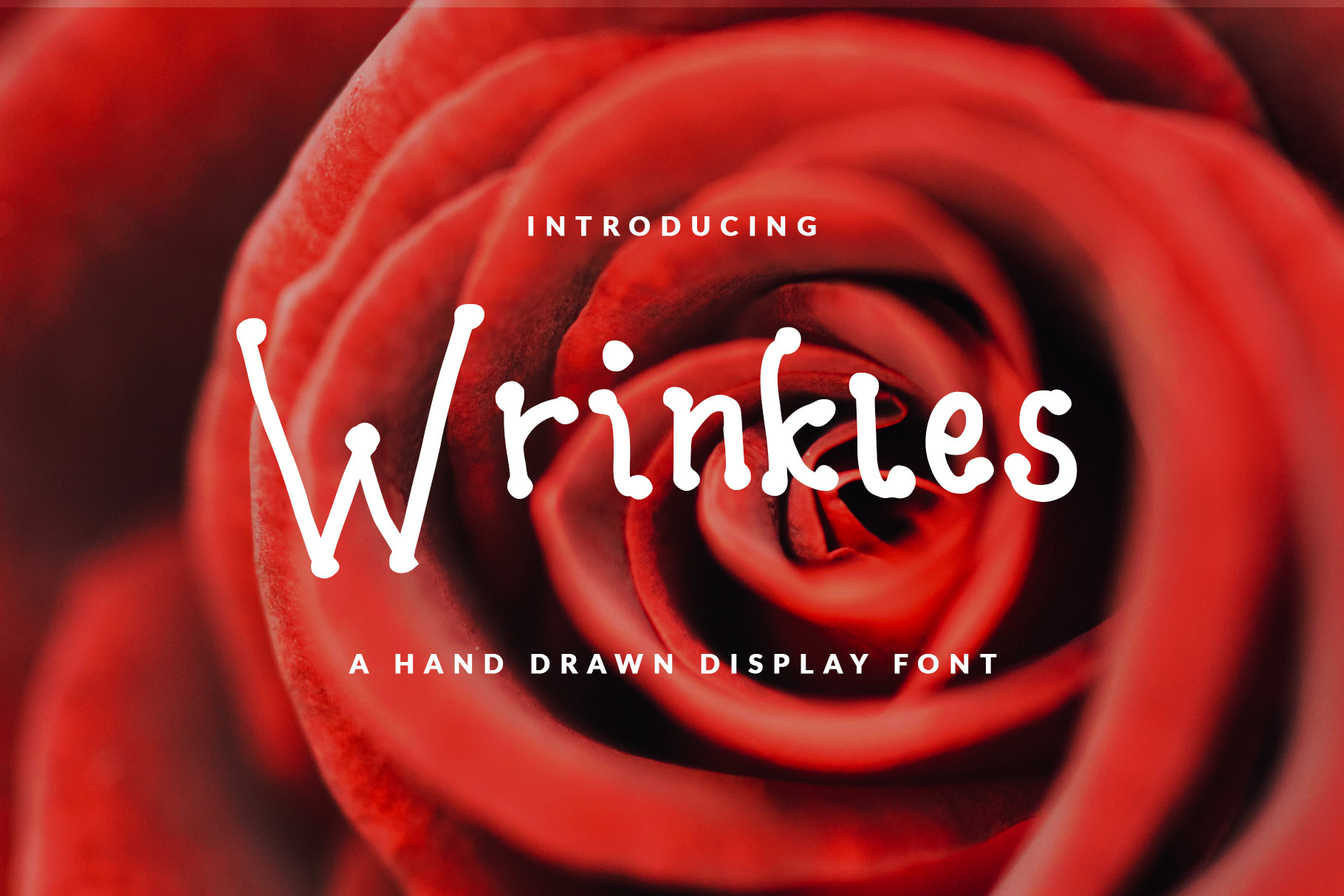
WRINKLE FONT FEMININE CHICK & FUN
Sans serif hand-drawn display font called WRINKLE was designed for modern, classic, feminine, unique and other style also fit for Header website, general use for header text, kids stories, books, poems and other long text